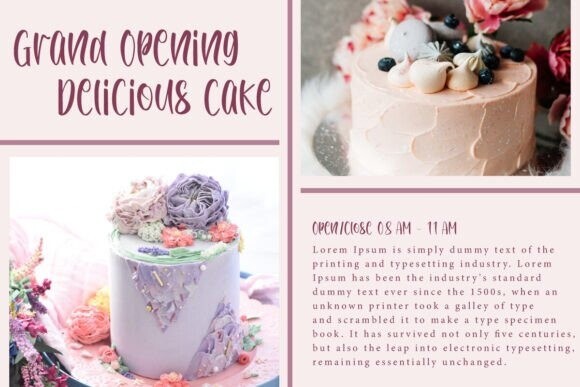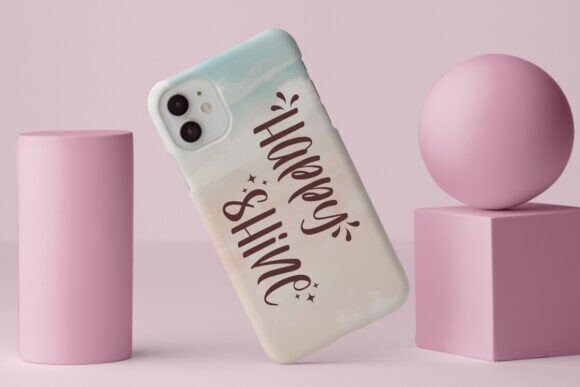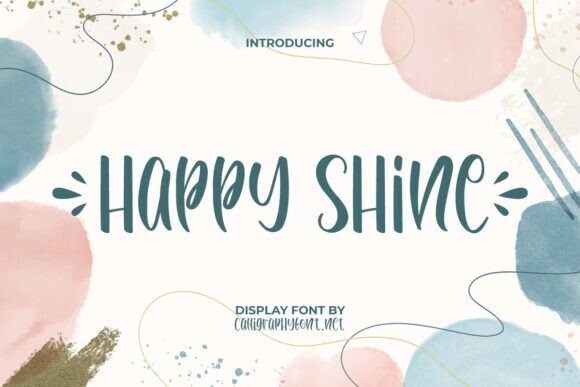
Happy Shine Font
Happy Shine Font is a beautiful display font full of joy in it. It feels modern in style with cute brush strokes on each character. Just like it’s named, “Happy Shine” is able to bring out the radiant light of happiness that always accompanies you in any project, such as apps, billboards, brand logos, brochures, flyer, labels, menus, posters, product packaging, quote, screen print, signage, stationery, sticker, title, website, and many more.
Happy Shine Font is a lovely handwriting with endless sparkles of happiness. This will be interesting and able to increase the artistic value of the font. It will be great for any industry, including accessories, advertisement, bakeries, beekeepers, beverage products, café, cake decorators, chocolate brands, content creators, cooking courses, dairy farmers, event organizers, graphic design, handicrafts, homeware, interior design, photography, printing, publishing, restaurant, vlogger, wedding, writer, etc.